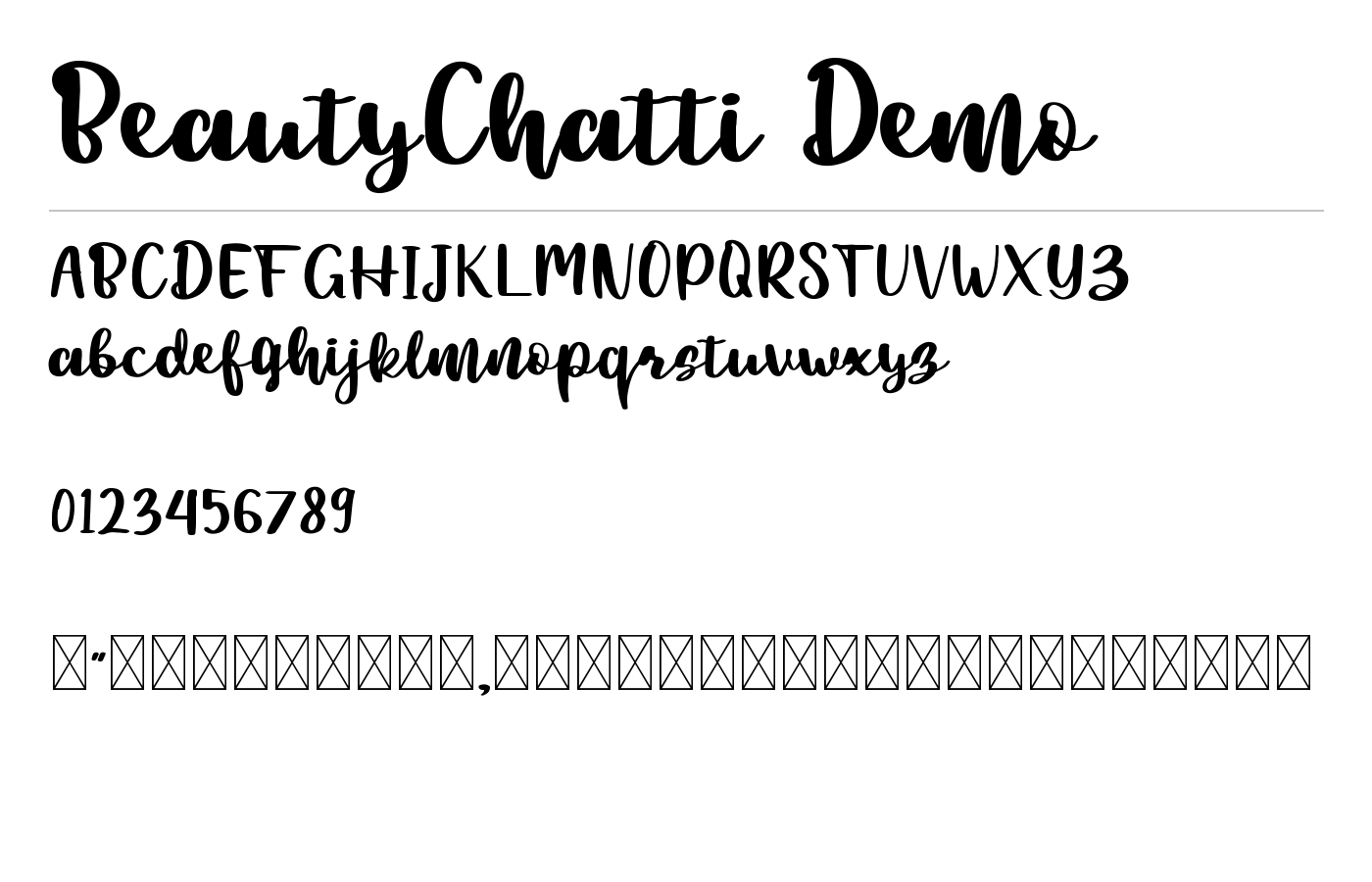
BeautyChatti Demo is a charming script font with a friendly, handwritten feel. It features smooth, rounded strokes and lively letterforms that convey warmth and approachability, making it ideal for casual, creative, and personal branding projects. This font works best for logos, invitations, packaging, and social media where a playful yet elegant touch is desired.
BeautyChatti Demo Font
About BeautyChatti Demo Font